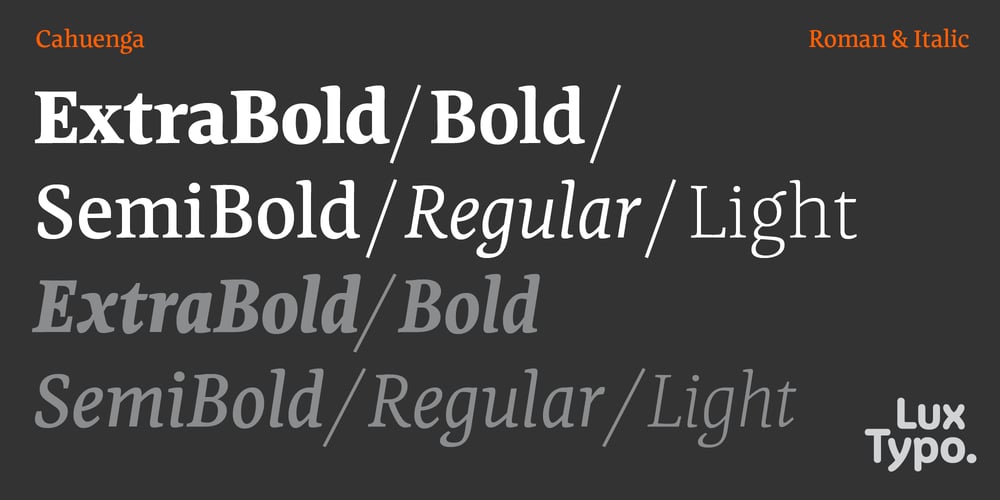
Cahuenga Font Family was designed by Greg Lindy and published by LuxTypo. Cahuenga contains 10 styles and family package options. Cahuenga embodies clarity in text and distinction in display. Throughout the development process, references were sought out only as moments for consideration presented themselves. Thus, the development was long and complex with Cahuenga not prescribing to a single distinctive model as a foundation. Exploration around formal traits was influenced as much by aesthetics as they were by desired functional outcomes. Cahuenga organically holds a tone and pitch that is sincere. The name is emblematic of many who drive through the Hollywood area of Los Angeles. As in many parts, the driving route is convoluted from point A to point B. However, it seems more often than not, that when in the Hollywood area, one usually ends up on Cahuenga Boulevard at some point.